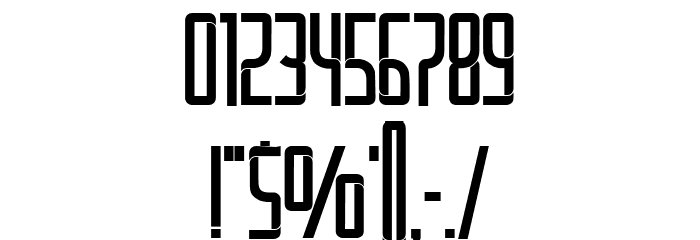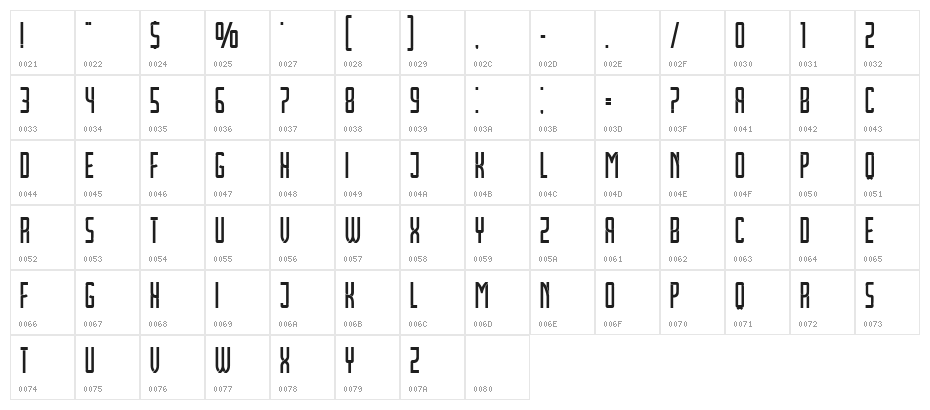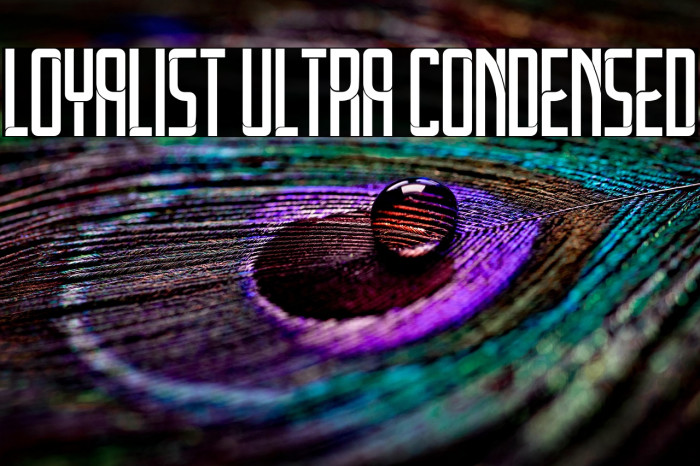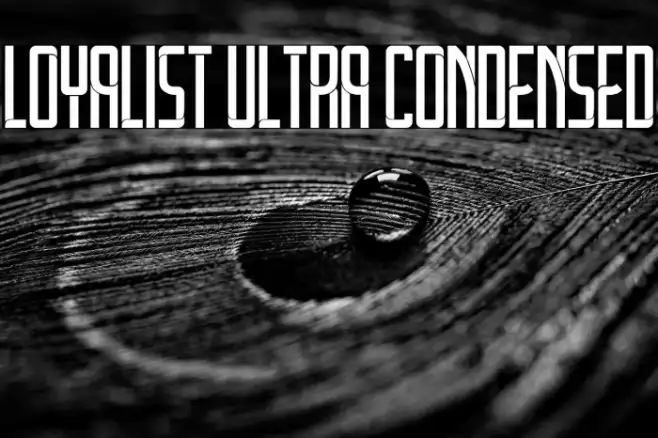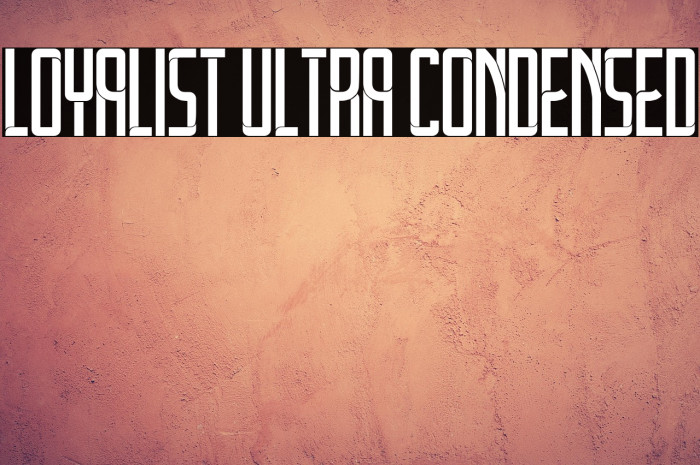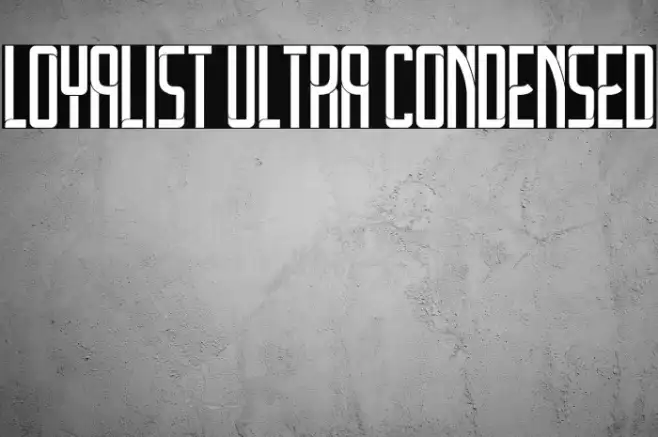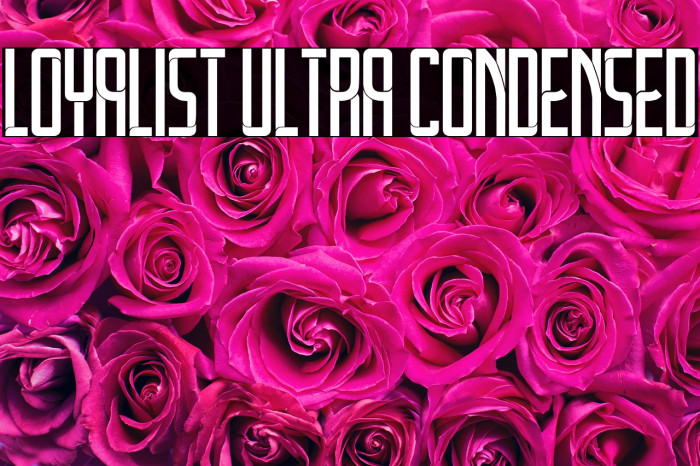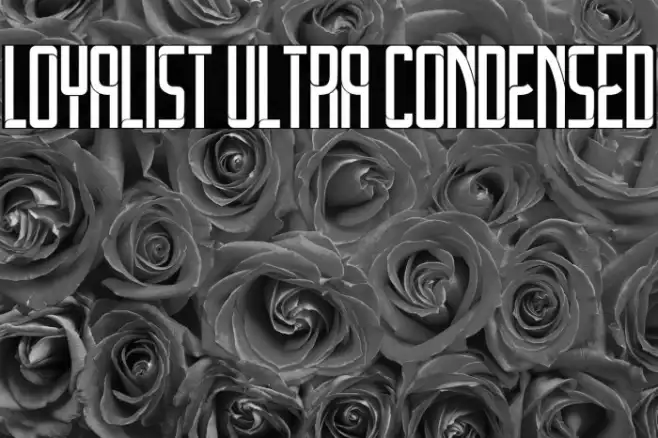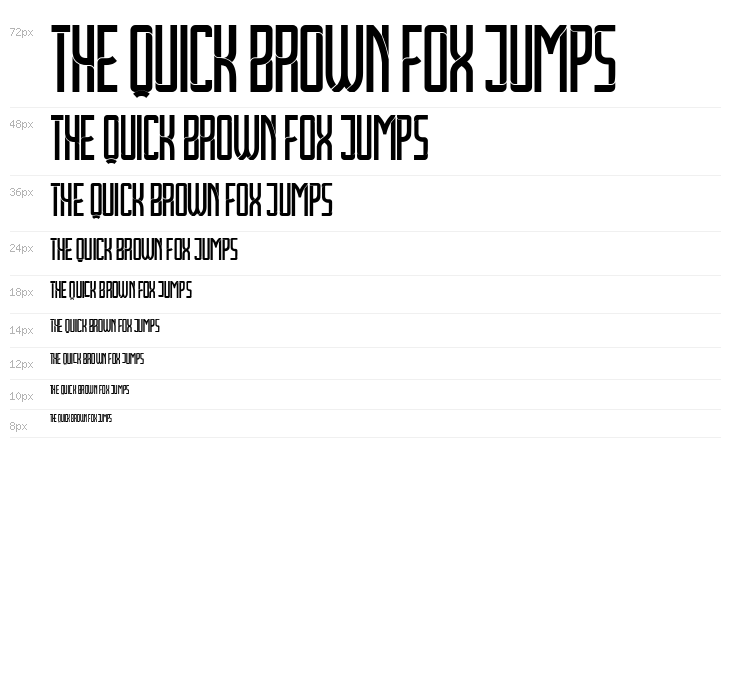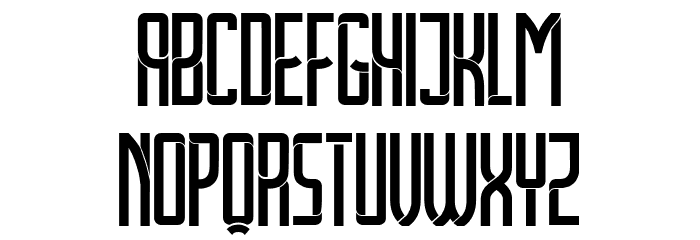
Loyalist Ultra Condensed Font
Loyalist Ultra Condensed Description
This font exhibits a strikingly modern and geometric design, characterized by its ultra-condensed letterforms. The vertical emphasis is prominent, with tall, narrow characters that create a sleek and sophisticated appearance. The strokes are consistent in width, contributing to a uniform look across all characters. The uppercase and lowercase letters maintain a cohesive style, with sharp angles and clean lines that enhance its contemporary feel. The numerals and special characters are designed to match the overall aesthetic, ensuring a harmonious visual presentation. This font's unique style makes it an excellent choice for projects that require a bold and impactful typographic statement.